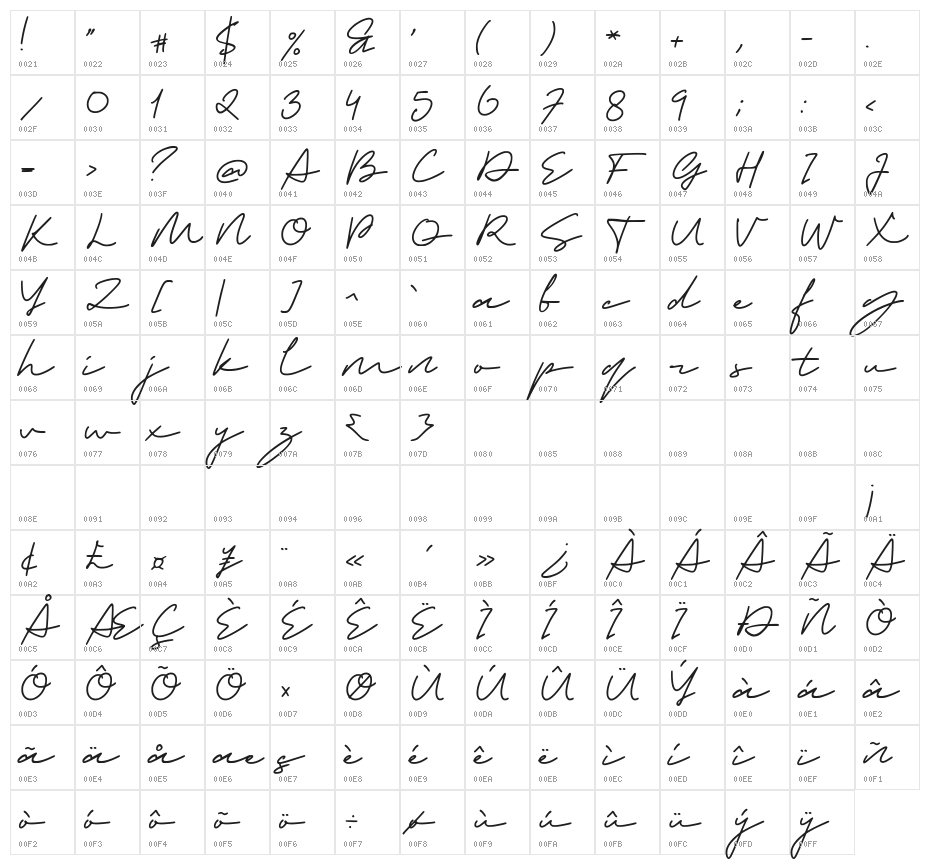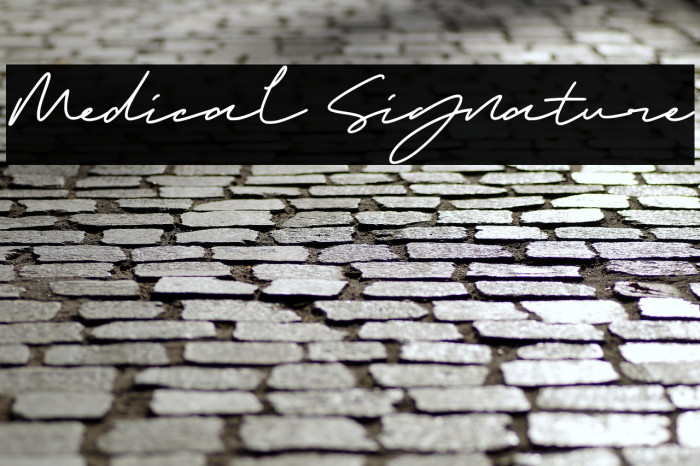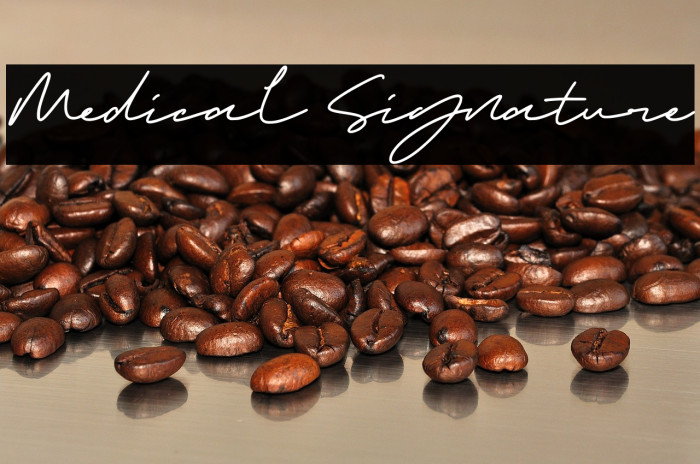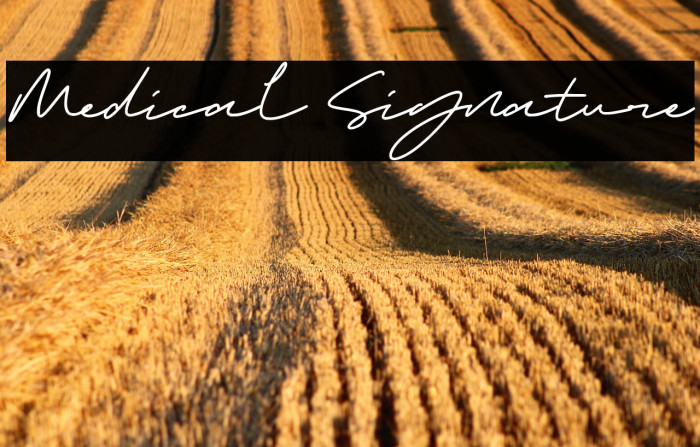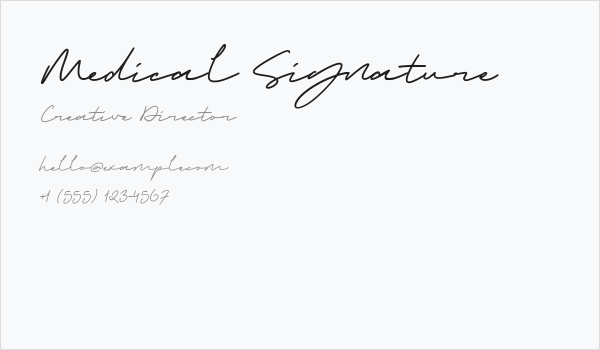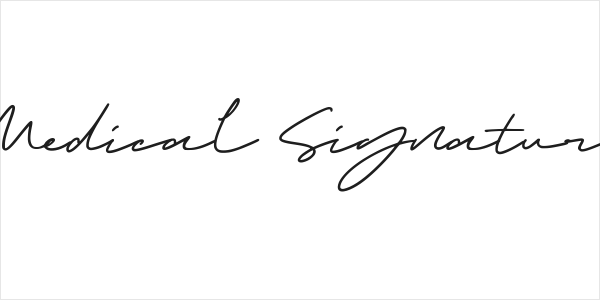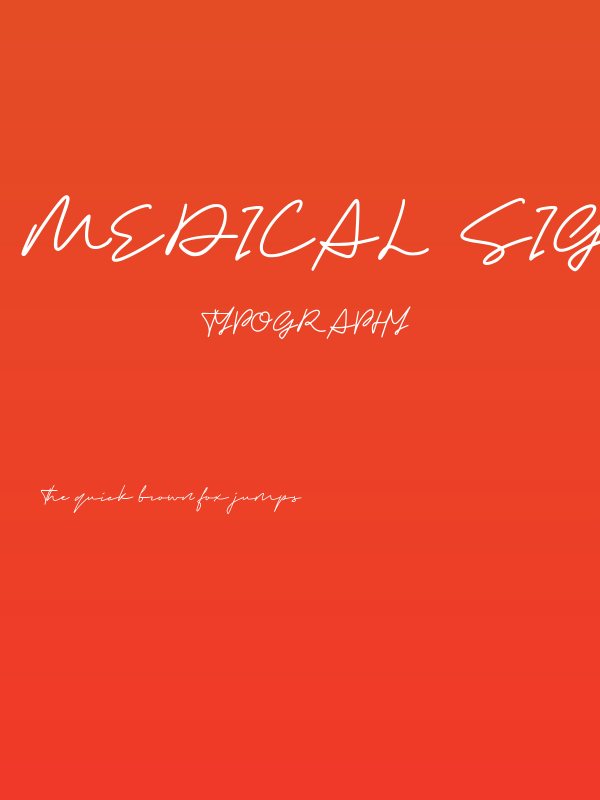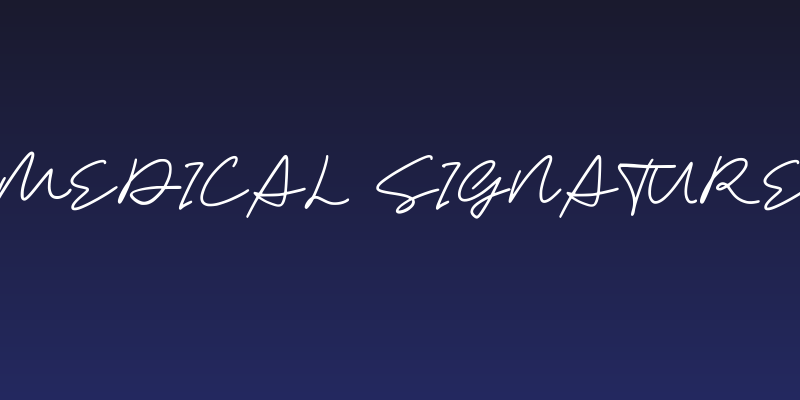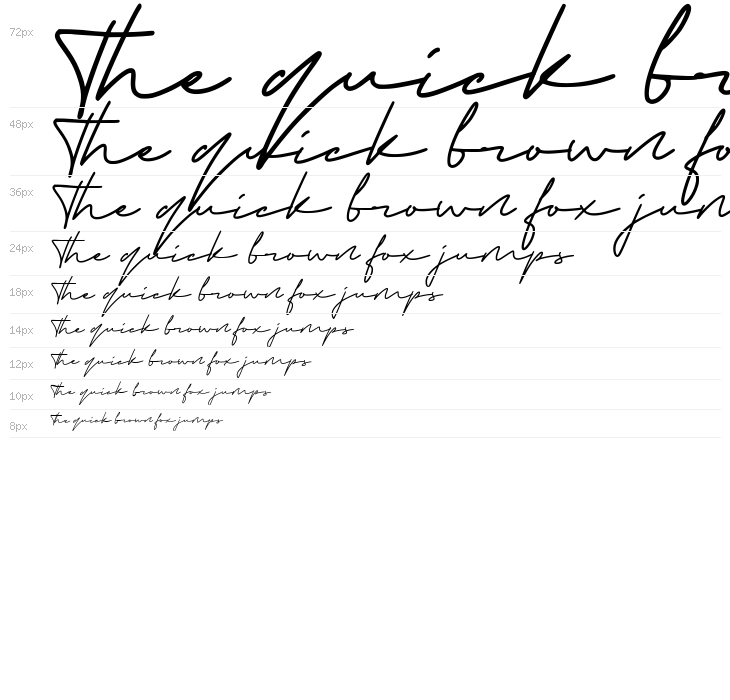
Medical Signature Font
Medical Signature Description
This font exudes a handwritten, cursive style that mimics the fluidity and elegance of a personal signature. The letters are connected in a smooth, flowing manner, giving it a natural and authentic feel. The uppercase and lowercase letters maintain a consistent style, with slight variations in stroke thickness that add to its charm. The numerals and special characters are crafted with the same attention to detail, ensuring a cohesive look across all elements. This font is perfect for projects that require a personal touch, such as invitations, greeting cards, or branding materials. Its unique style makes it stand out, while still being legible and versatile.
| Use Case | Logos, Headlines, Personal branding |
| Proposed Projects | Ideal for invitations, personal branding, greeting cards, and elegant stationery. |